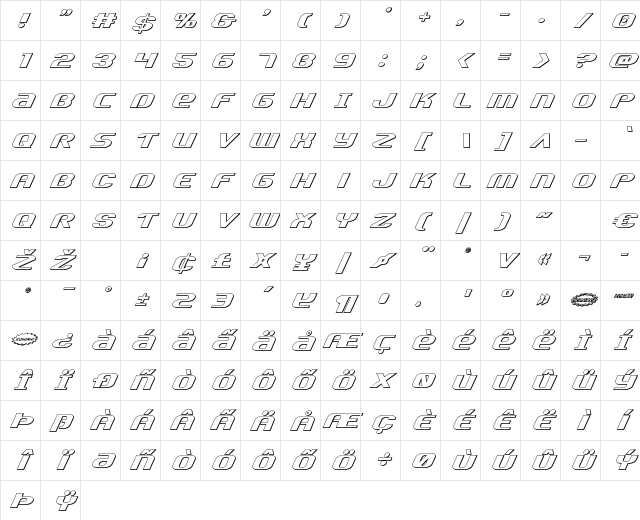
Team America 3D Regular Free Font
Team America 3D Regular
Design Context for Team America 3D
Team America 3D is a composed and adaptable typeface that performs quietly and consistently across a wide range of design contexts.
Pro Tip: Use Team America 3D in both headline and body roles to test its range before committing to a single application.